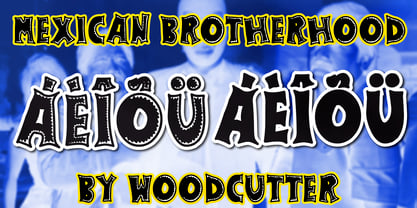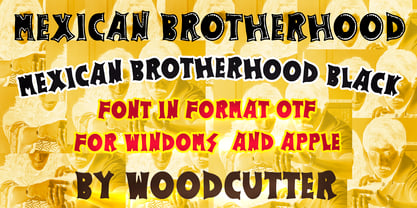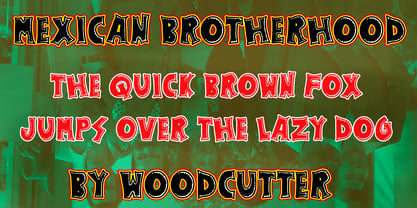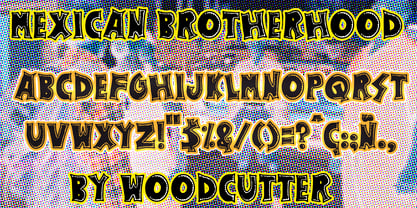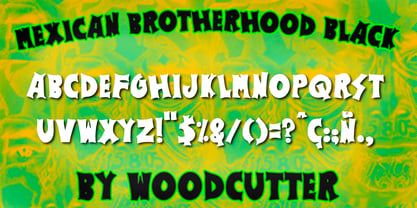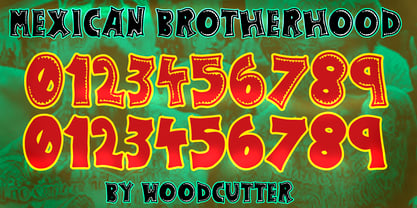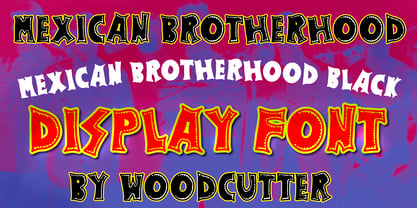
Mexican Brotherhood
by Woodcutter
The Mexican Brotherhood Font Family was designed by Jordi Manero and published by Woodcutter. Mexican Brotherhood contains 2 styles and family package options. More about this family
Mexican Brotherhood is a vibrant and festive type family that captures the essence of Mexican popular culture through a warm, expressive, and character-rich visual language. Designed in uppercase letters with full accent support, this typeface stands out for its thick, hand-drawn strokes, evoking traditional sign painting, handcrafted posters, and lively celebrations full of color and spirit. The shapes of Mexican Brotherhood are bold and dynamic, featuring wide curves and irregular lines that convey warmth, energy, and authenticity. Its festive style is enhanced by decorative contour details, adding visual richness while maintaining readability. Each character feels rhythmically constructed, reflecting a sense of community, joy, and cultural identity. The family consists of two complementary styles. Mexican Brotherhood features decorated outlines combined with a solid base, creating a visually engaging and expressive look ideal for bold compositions. In contrast, Mexican Brotherhood Black offers a fully solid black version, removing decorative elements to achieve a more direct, strong, and versatile impact. This type family is perfect for cultural branding, posters, packaging, festive events, food-related design, music, illustration, and any project that aims to convey joy, identity, and a powerful handcrafted aesthetic.
Designers: Jordi Manero
Foundry: Woodcutter
Mexican Brotherhood